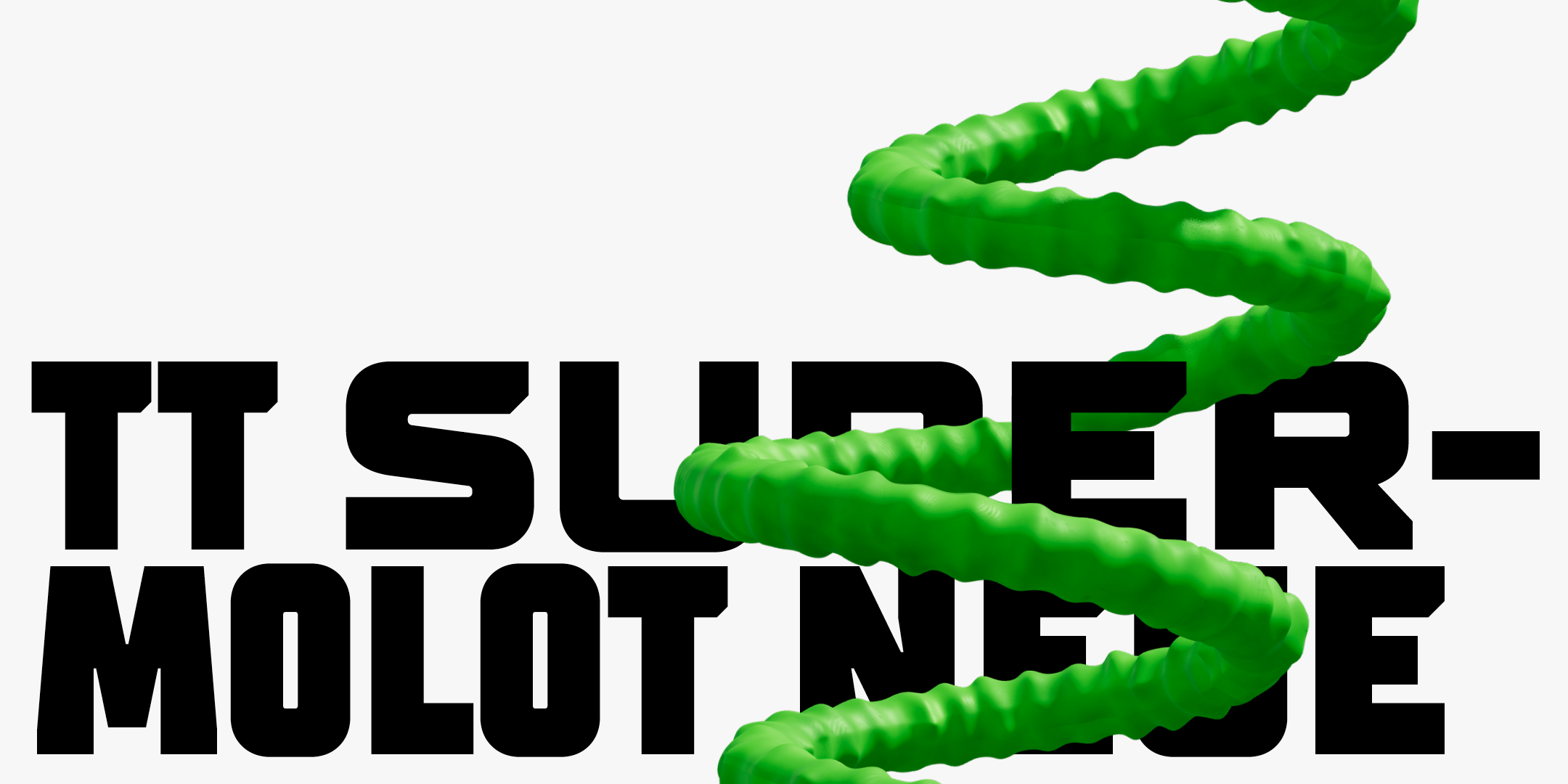
TT Supermolot Neue Font is ideal for dynamic sports branding, high-energy entertainment venues, powerful automotive advertising, extreme action sports events, energetic youth marketing, bold fitness campaigns, adrenaline-fueled gaming graphics, intense music festival posters, explosive promotional materials, and maximum-impact digital displays.
What makes TT Supermolot Neue Font exciting is its explosive energy and super-charged dynamism that embodies the essence of maximum power with unstoppable force and electrifying intensity. This powerful typeface captures the spirit of extreme energy with its dynamic character forms and super-powered proportions that evoke rockets launching into space, lightning bolts splitting the sky, and the kind of explosive force that breaks through every barrier with unstoppable momentum. The font's super-charged character creates an immediate surge of adrenaline and the kind of explosive impact that electrifies audiences.
TT Supermolot Neue Font family includes regular weight with dynamically crafted character designs featuring explosive curves and super-powered proportions. The typeface maintains excellent readability while showcasing its distinctive high-energy personality through powerfully designed letterforms that seem charged with the same explosive force that powers rocket engines and lightning storms.
High-energy brand designers consistently choose TT Supermolot Neue Font Free Download for projects requiring authentic explosive appeal and super-powered credibility. This remarkable typeface brings the power of maximum energy to brand communications, combining dynamic aesthetics with explosive functionality to create unforgettable high-impact experiences. The dynamically designed characters ensure explosive positioning across all applications, making it essential for action brands, entertainment companies, and any organization seeking to communicate the transformative power of explosive energy and the electrifying intensity that comes from embracing maximum force through TT Supermolot Neue Font Free Download.